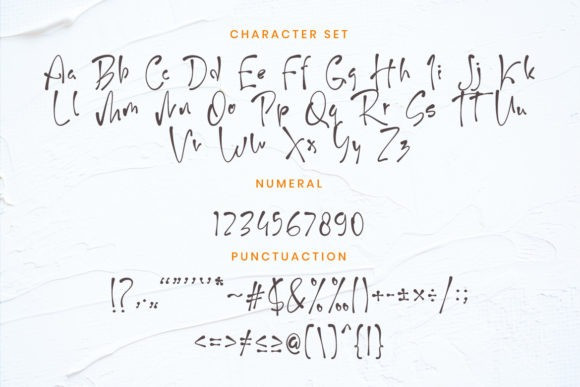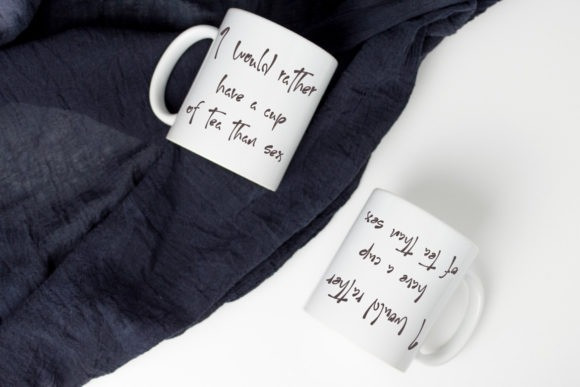
My Ngune Font
My Ngune Script Font is a quirky and uniquely designed handwritten font. Its informal style and casual vibe will make this font a go-to choice for each of the creations that require a relaxed touch.